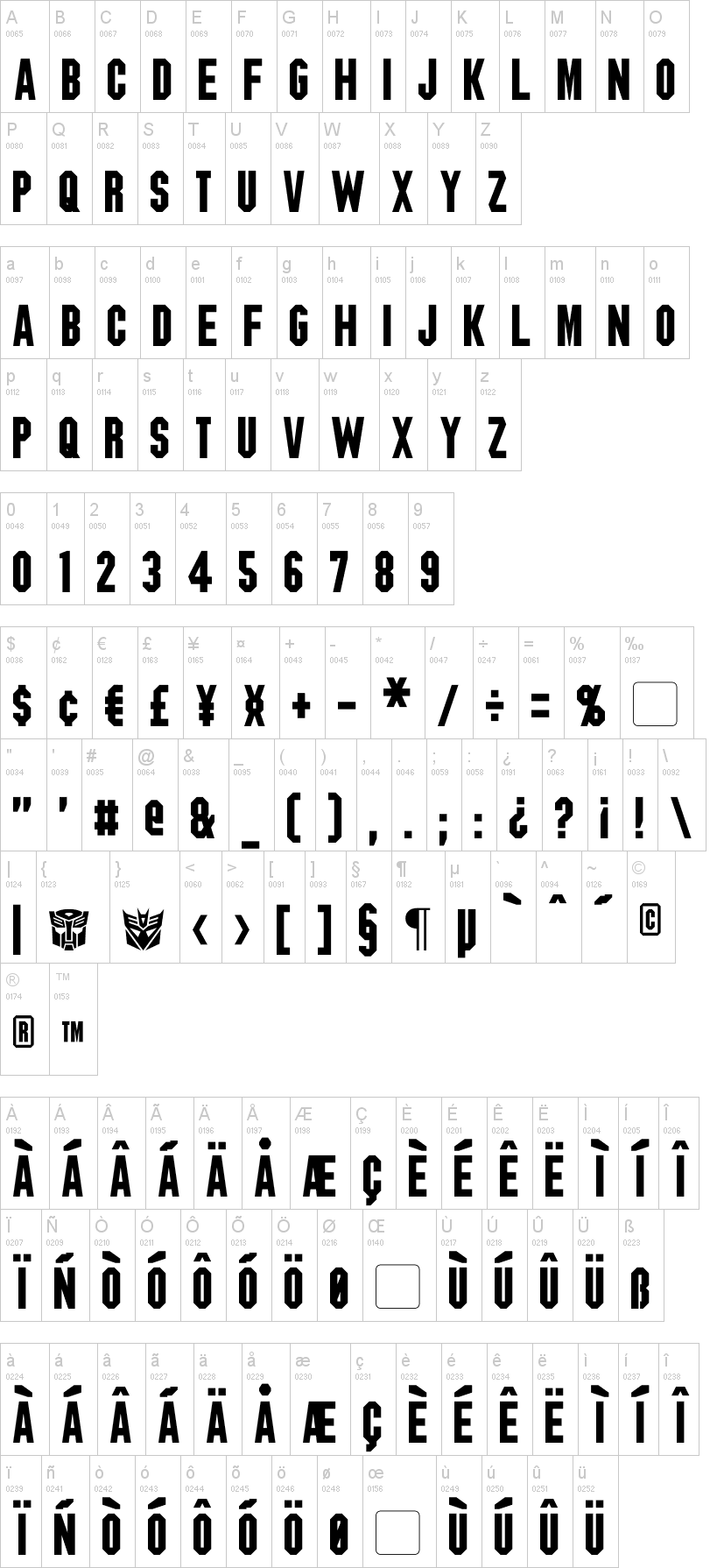
Шрифт Blitzwing
This simple, angular typeface is based on the character-name logos from Hasbro, Inc.'s "Construct-Bot" toyline. Includes full alphabet, extended characters, euro. Includes italic, hollow, and extended versions.